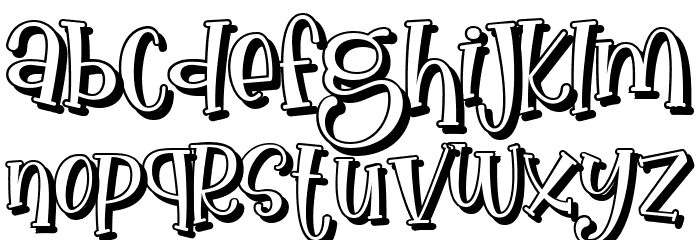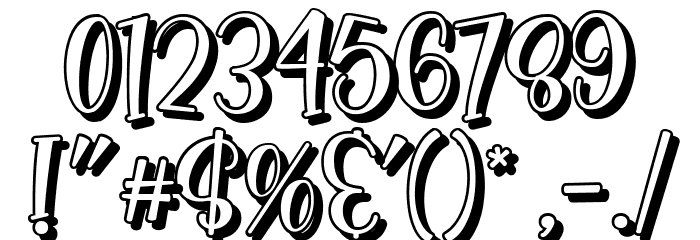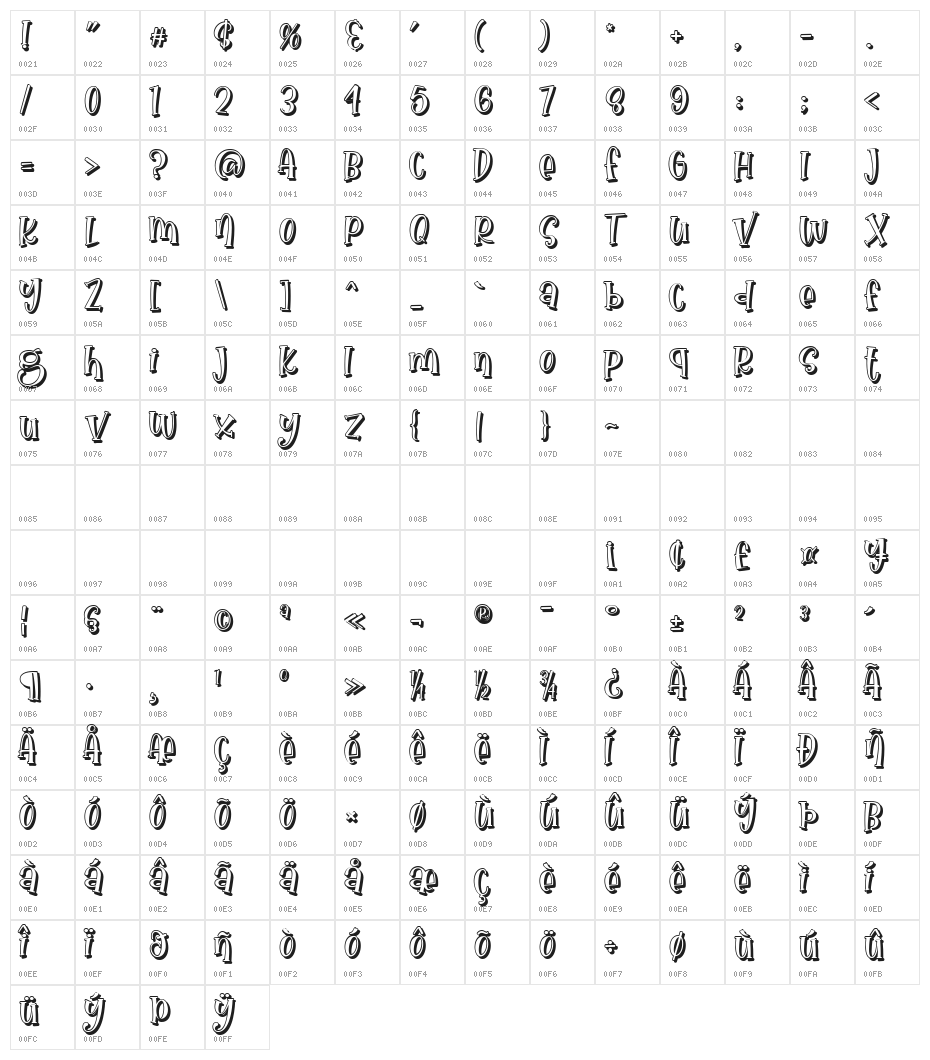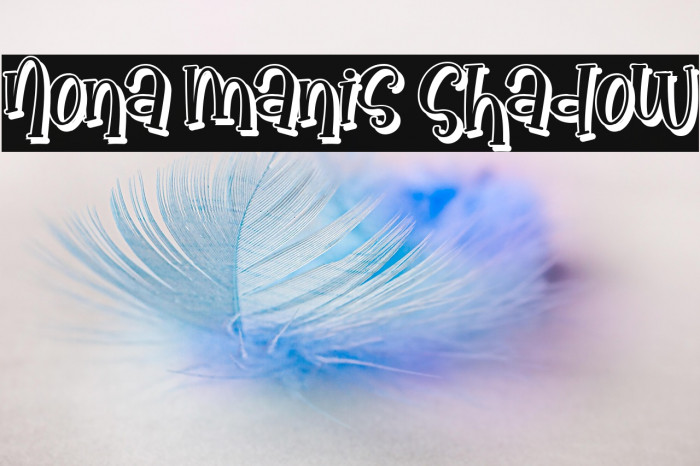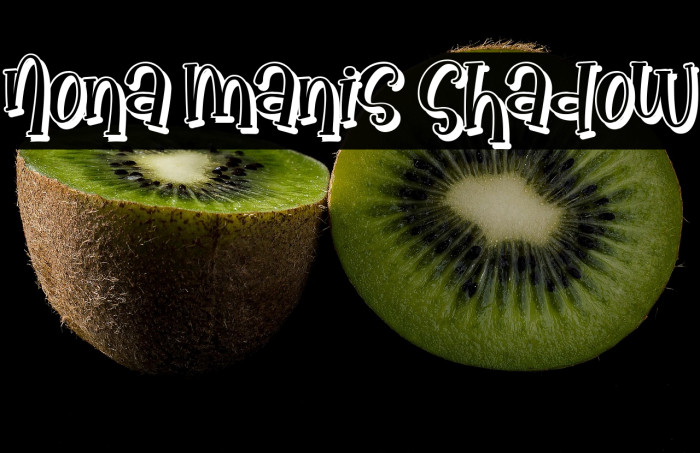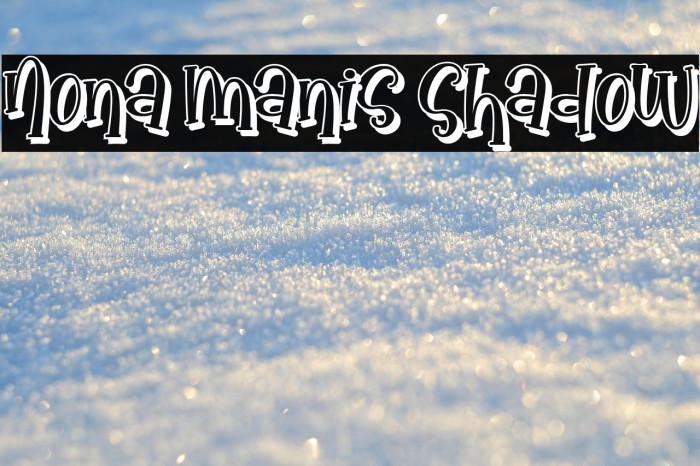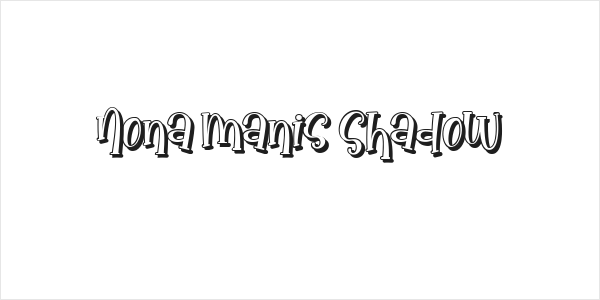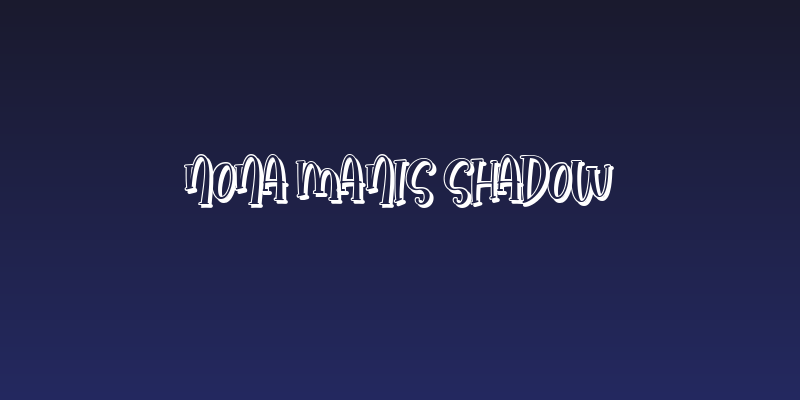
Nona Manis Shadow Font
This playful and bold font features a shadow effect that gives it a three-dimensional appearance. The letters are rounded and have a whimsical, cartoon-like style, making them stand out with their thick strokes and playful curves. The uppercase and lowercase letters maintain a consistent style, with a slight slant that adds to the dynamic feel. The numbers and special characters are equally bold and maintain the same shadowed effect, ensuring a cohesive look across all characters. This font is perfect for projects that require a fun and engaging visual element.
A playful, bold font with a shadow effect and cartoon-like style.
- Font: Nona Manis Shadow
- Proposed Projects: Ideal for children's books, comic strips, playful branding, and event posters.
- Overall Style: Playful, Cartoonish, Fun
- Use Case: Headlines, Posters, Branding